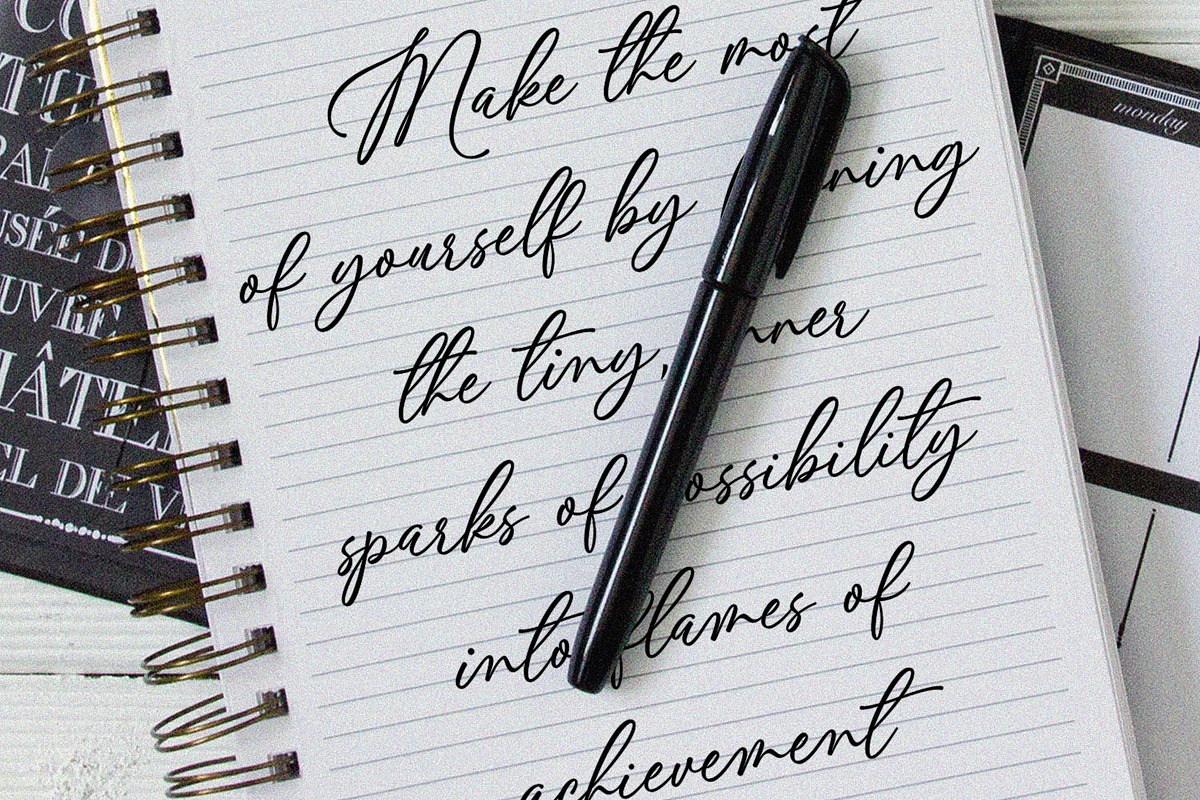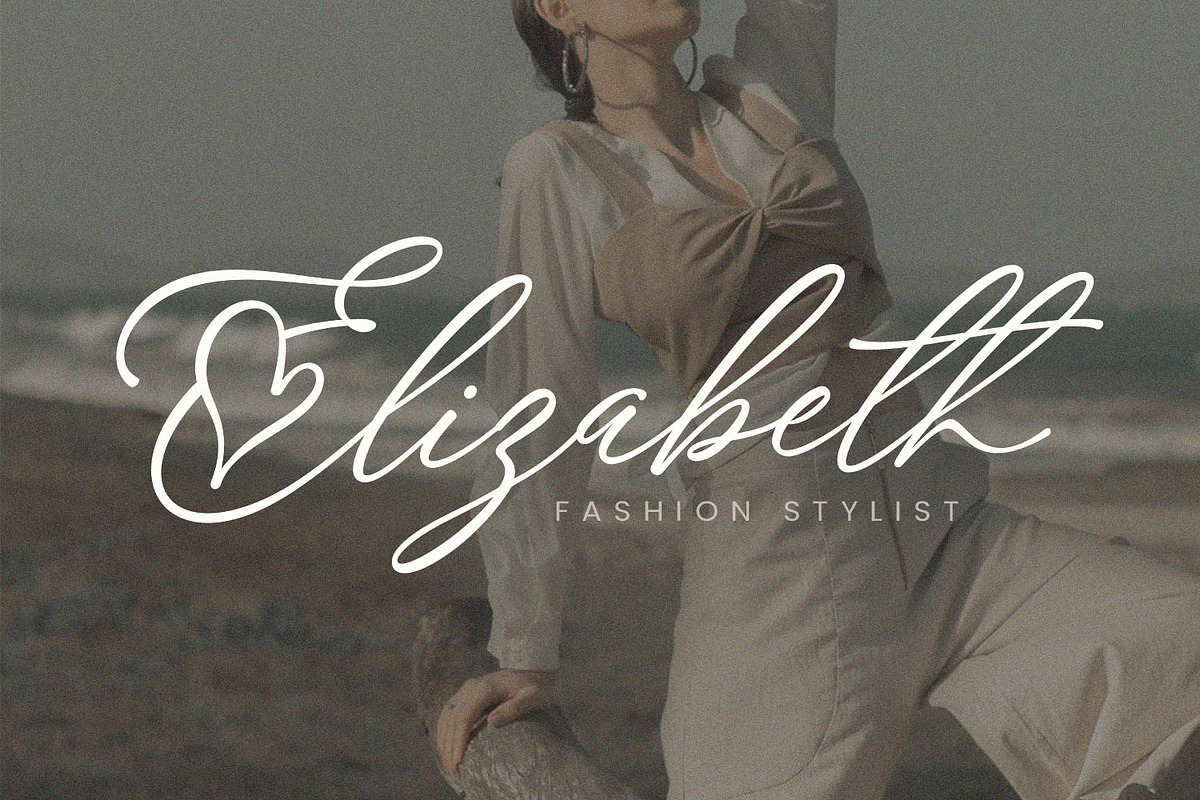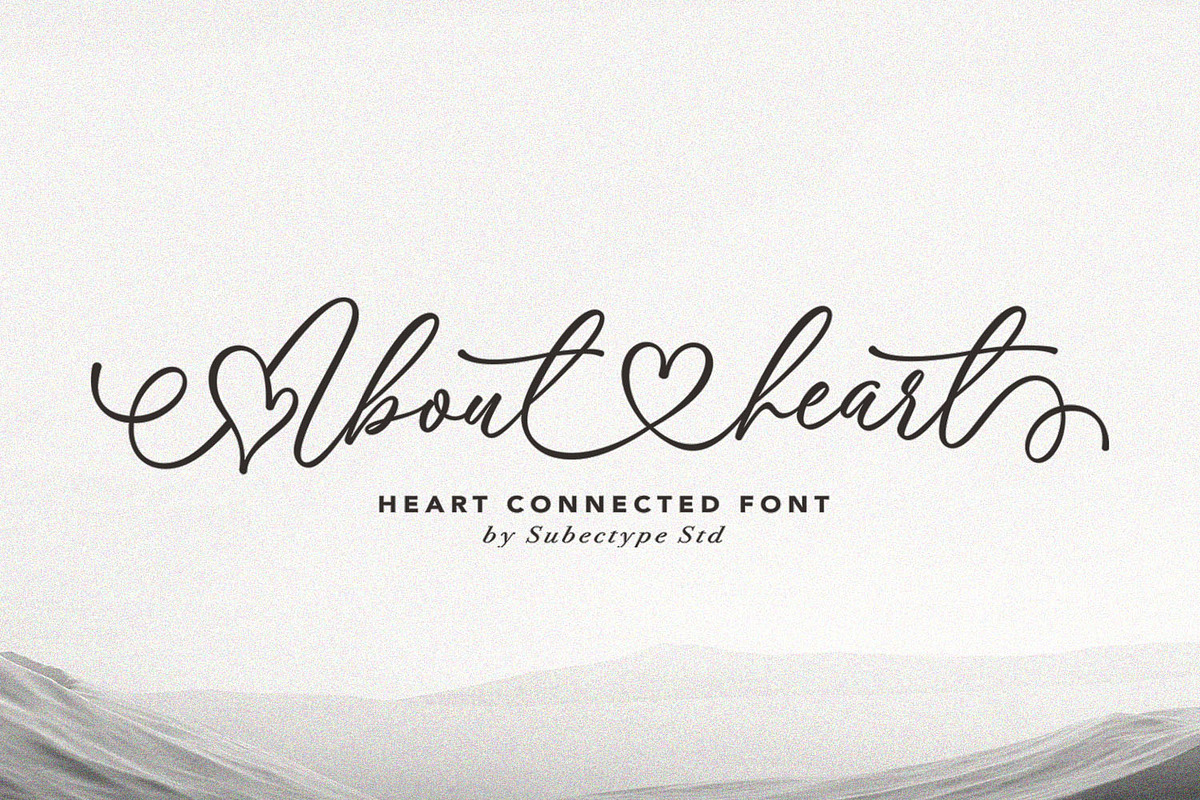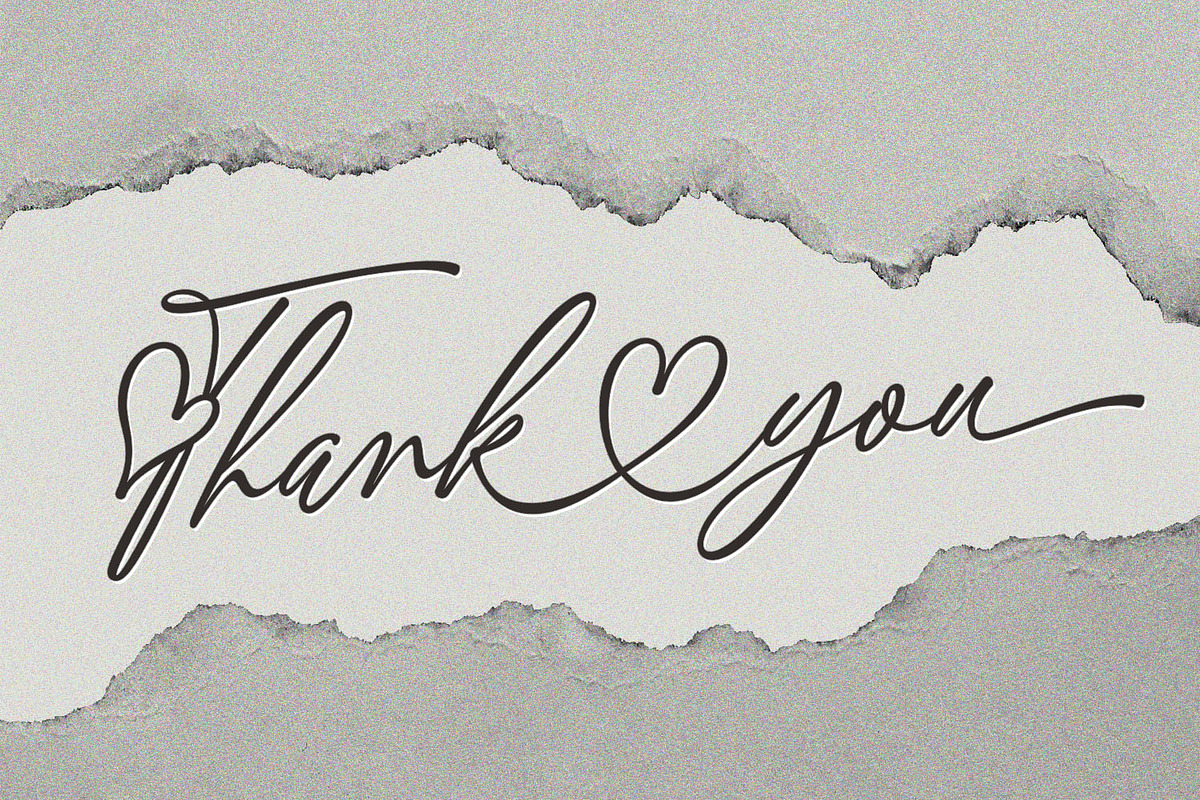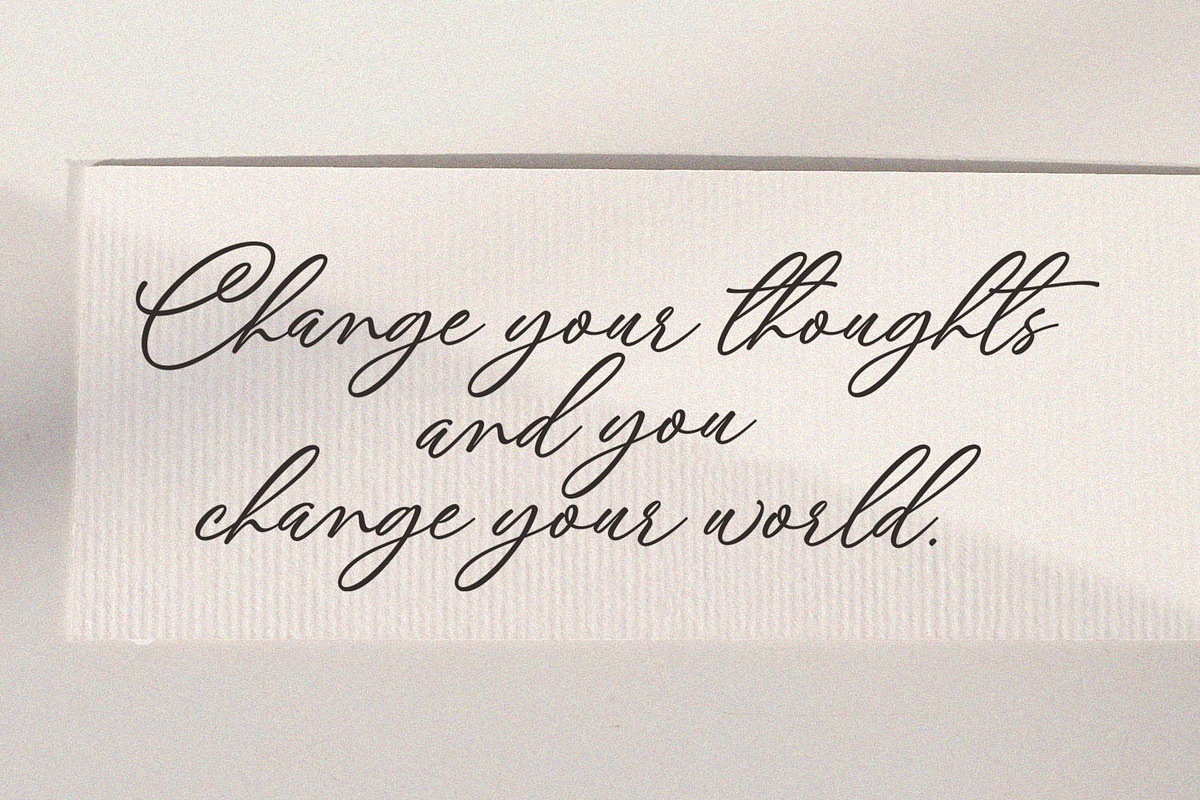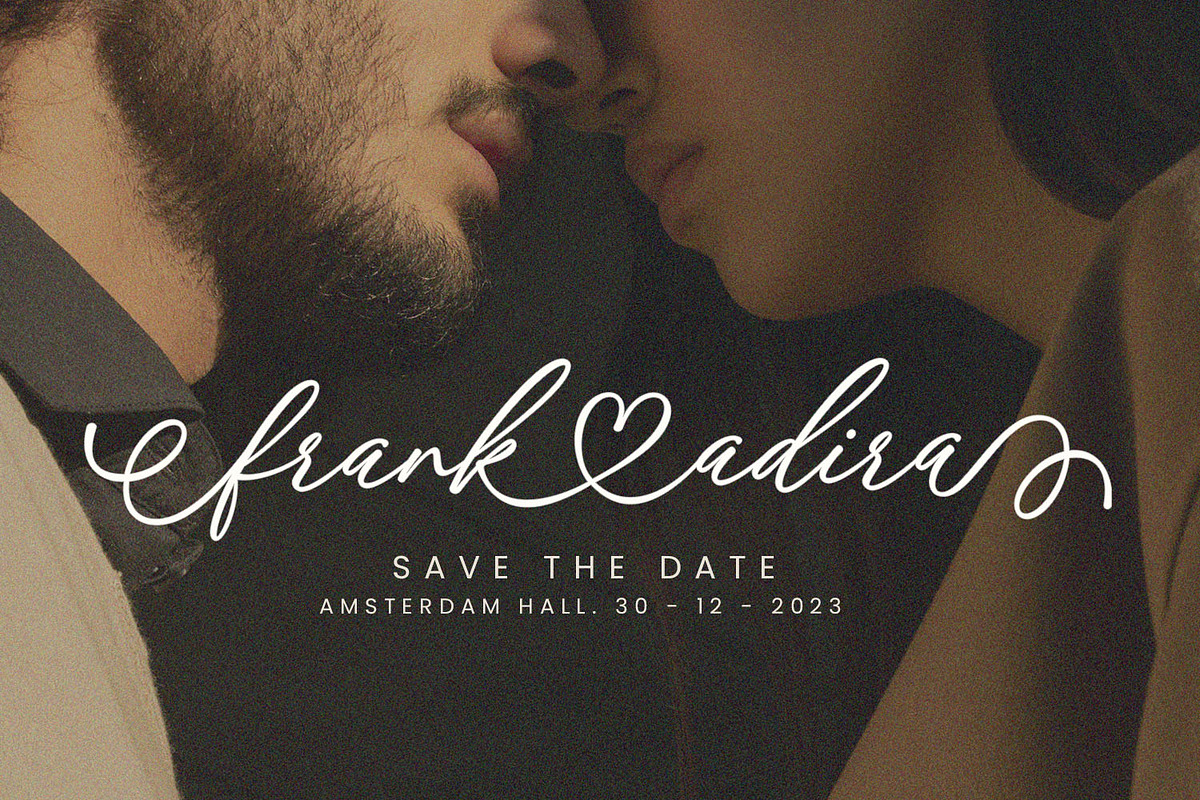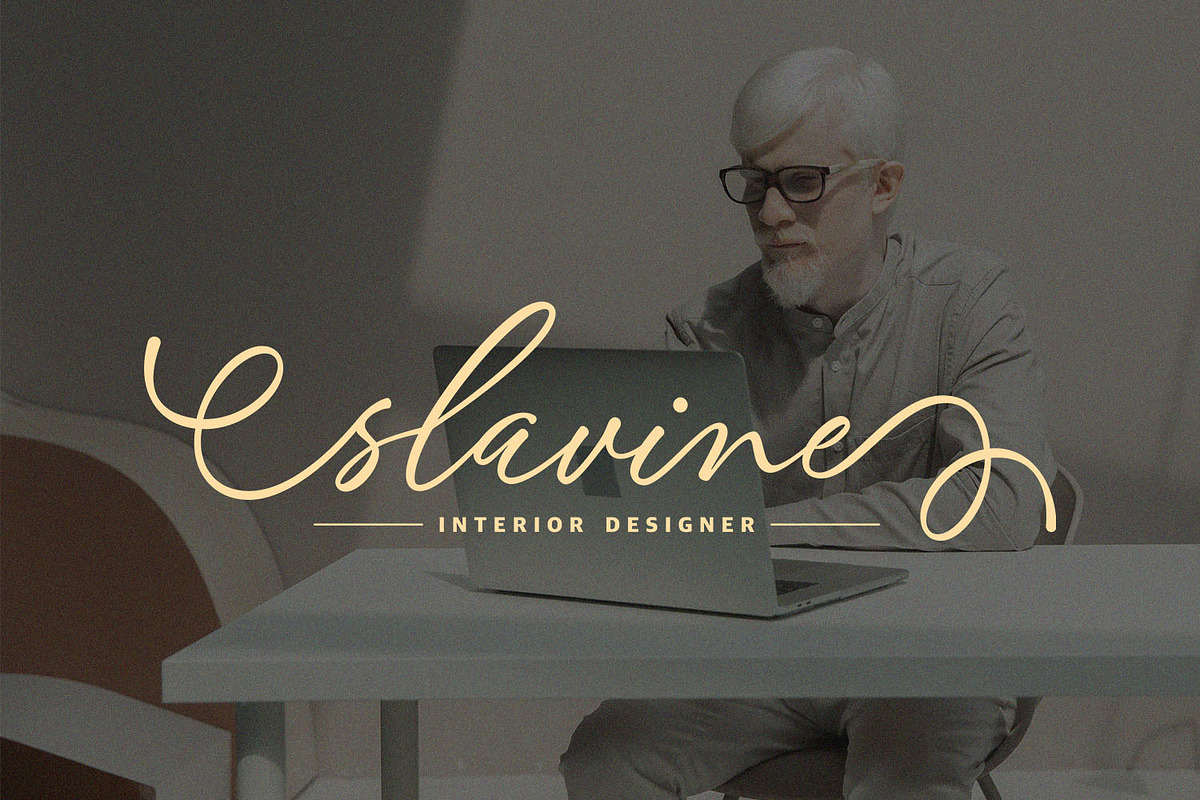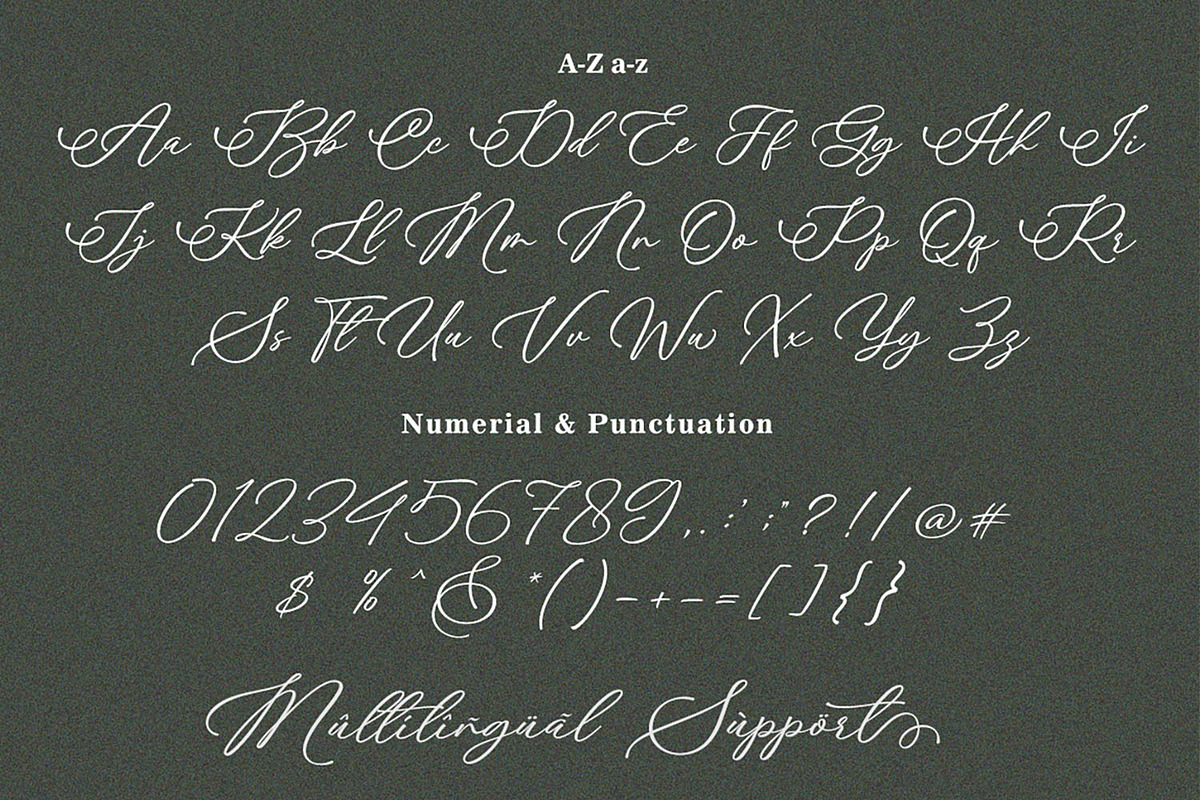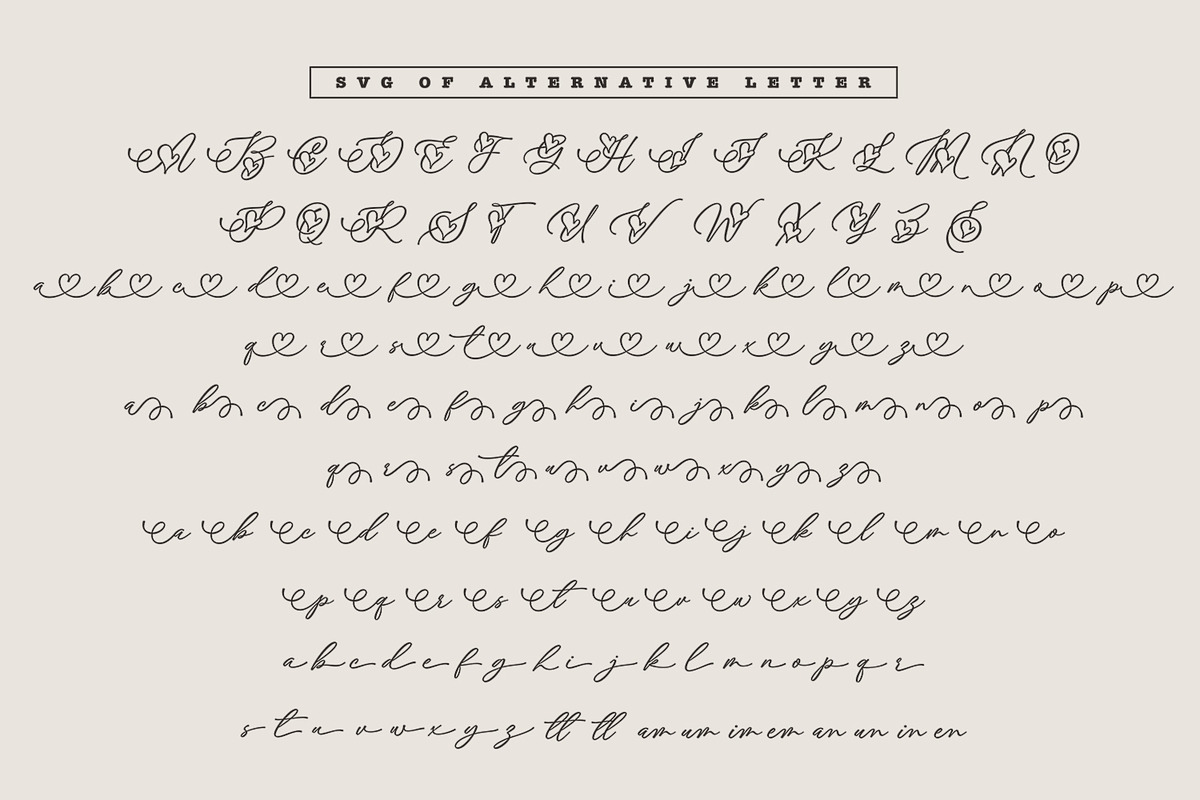
About Heart - Heart Connected Font
About Heart is a Chic calligraphy font with Heart connected style, described by an Love touch, perfect for your favorite projects. Fall in love with its incredibly distinct and timeless style and use it to create spectacular designs!
"About Heart" includes a full set of lovely uppercase and lowercase letters, multilingual symbols, numerals, punctuation and ligatures. Also it includes: Alternates letter for lowercase beginning and ending swashes, lowercase ending heart swashes, which serve to connect two words or letters (This is so perfect for invitations, monograms)